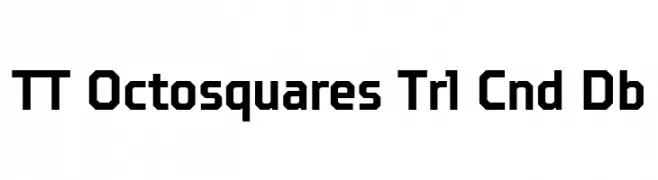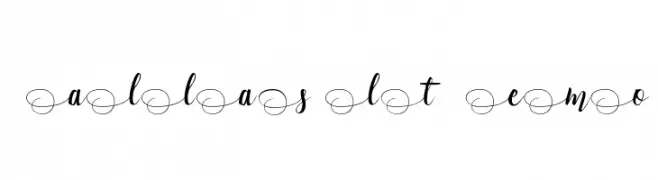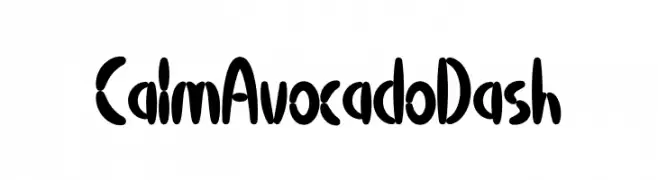
A bold, futuristic font with sharp angles and a three-dimensional effect.
A bold, geometric font with angular and condensed letterforms.
A playful handwritten font with flowing, interconnected strokes.
A futuristic, bold font with a horizontal line pattern and geometric structure.
A sophisticated script font with elegant, flowing letters and decorative flourishes.
A bold, whimsical script font with elegant swirls and loops.
A bold, geometric font with a strong, industrial aesthetic.
An elegant, cursive font with intricate swirls and loops.
A bold, italicized font with a futuristic and angular design.
A playful, bold font with rounded, organic shapes and a whimsical touch.